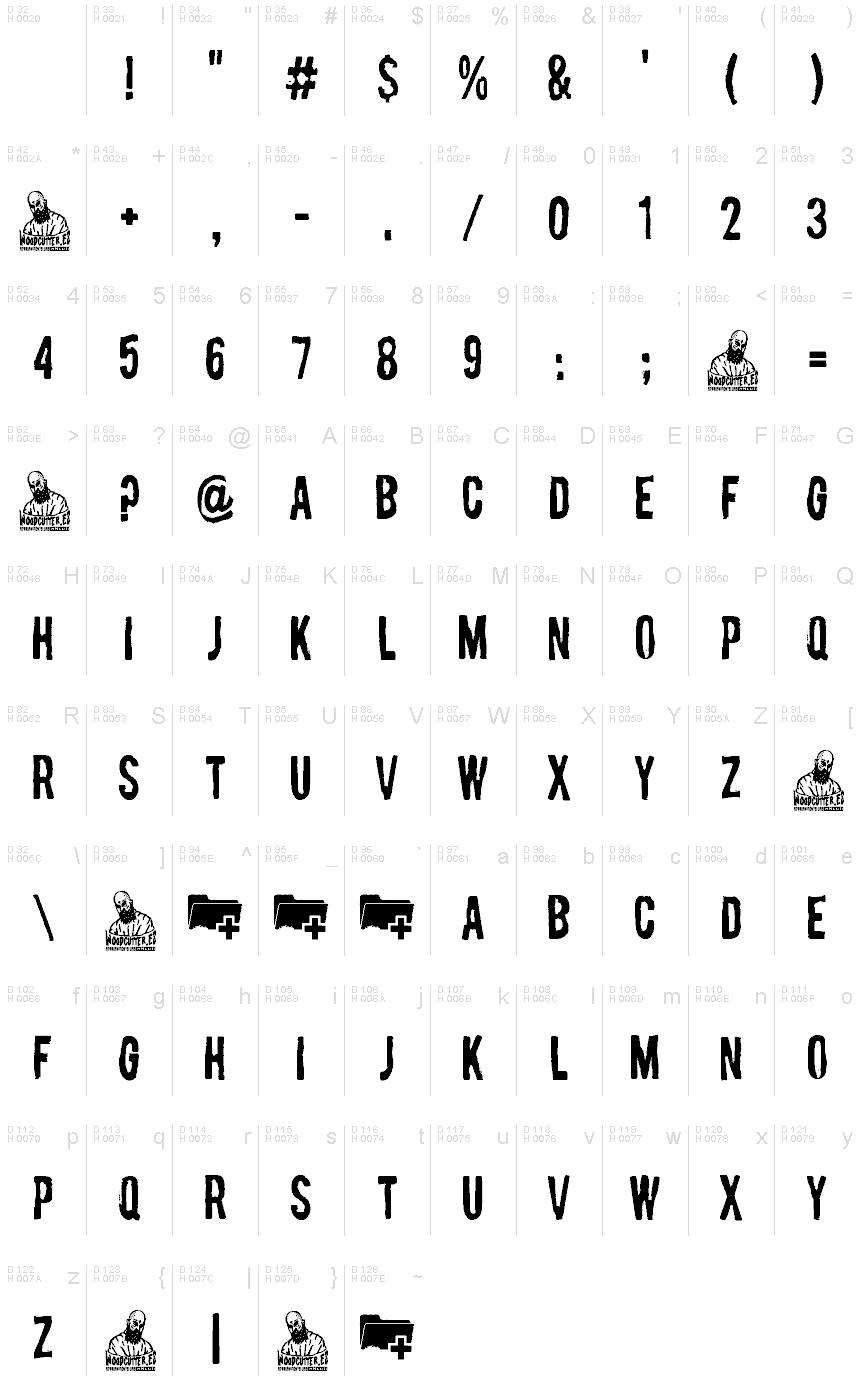
Nueva Carpeta
Nueva Carpeta font by Woodcutter expresses boldness with its eroded letters supporting a general distressed appearance. Every character displays textures of irregular shapes composing its unique style. This condensed display font is grunge at its finest as it takes matters further than similar designs while establishing a noticeable yet balanced visual impact.
Nueva Carpeta is free and excellent for logo design, text posters, typography art, book covers, and t-shirt print designs. The fonts are also clear enough for infographic titles and professional branding projects like magazines or product package labels.